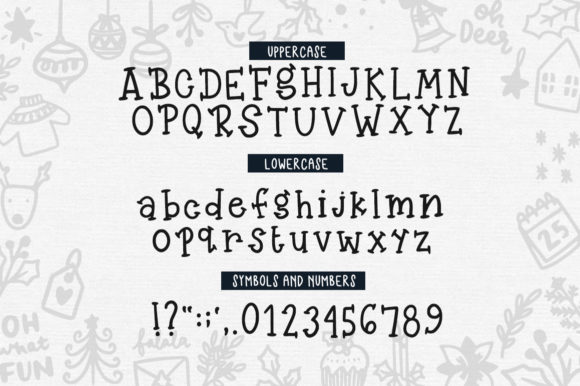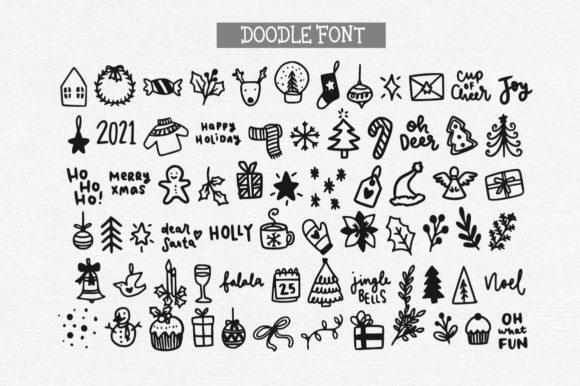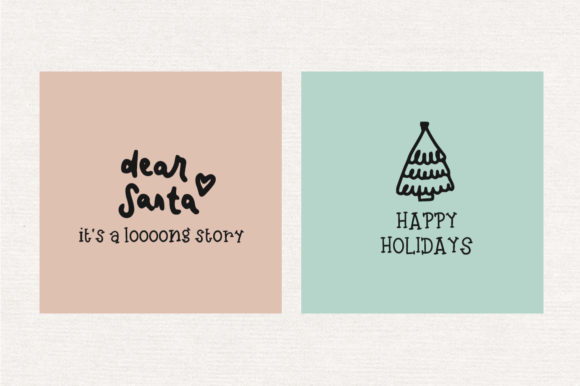
Christmas Joy Font
Christmas Joy is a fun and quirky duo font (serif and dingbats) ! Use it to create your very own branding logo or greeting cards for this coming Christmas season!